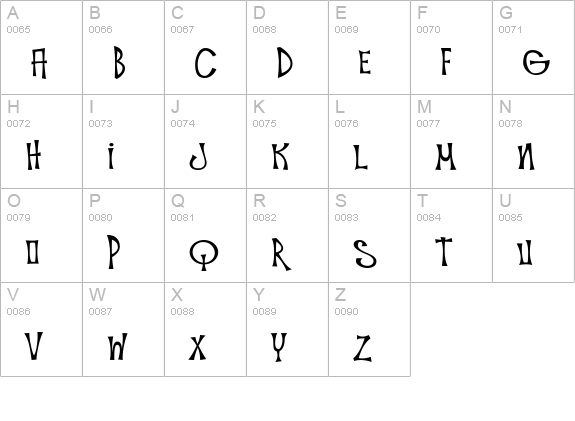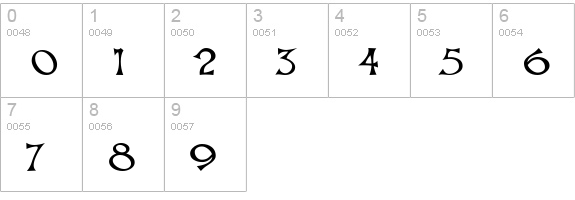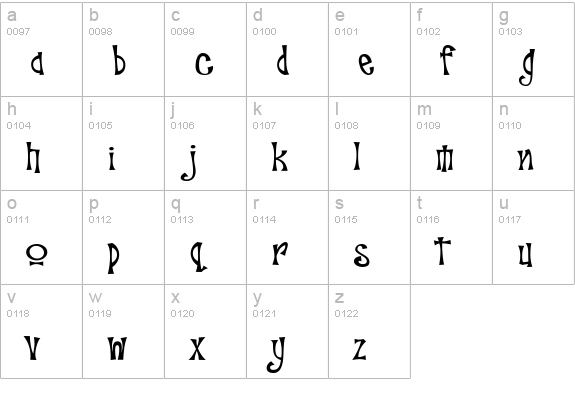
Troutkings BTN Font Details
Troutkings BTN font is a stunning display typeface that effortlessly combines elegance with a touch of vintage charm. Its bold and distinctive letterforms make it perfect for creating eye-catching headlines, logos, and branding materials. The design of Troutkings BTN font is inspired by the graceful movement of trout swimming in clear, pristine waters. Each letter is meticulously crafted to reflect the fluidity and beauty of these majestic creatures, capturing their essence in every curve and stroke. This font is not only visually captivating but also incredibly versatile. Whether you're designing a poster for a music festival, a menu for a trendy restaurant, or even a book cover, Troutkings BTN font will add a touch of sophistication and uniqueness to your project. One of the best things about Troutkings BTN font is that it is completely free. Yes, you read that right! This amazing typeface is freely available to download at FontsMarket.com. So, you can bring your design visions to life without having to worry about any additional costs. So, why wait? Discover the beauty of Troutkings BTN font today and take your designs to the next level. With its free availability and remarkable aesthetics, this font is truly a must-have for any designer or creative individual looking to make a lasting impression. Download it now and let your creativity soar!